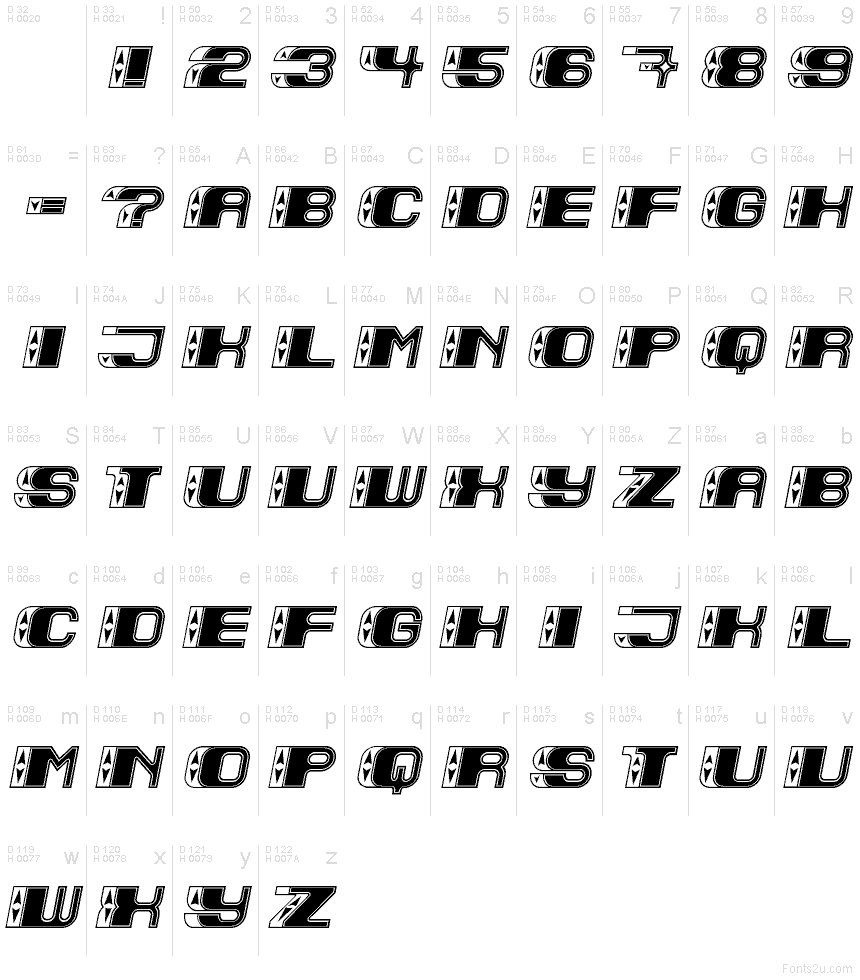
Mineral Italic
Mineral Italic font by Vladimir Nikolic is a decorative display font which uniquely combines retro-futuristic and vintage styles. With expanded width and bold weight, its angular geometry stands as a focal visual element while the contrasting elements and included pattern details further boost the overall aesthetics. Generally speaking, it’s a strong typographic choice that doesn’t fail to attract attention.
A single size in terms of height is offered but that will be enough for you to create simple posters, headlines, covers, logos, or business cards. It can also be used for branding and packaging labels on products like perfumes, cosmetics, clothing items, or coffee. Other than digital projects this free font can also be applied in physical themed event invitations.